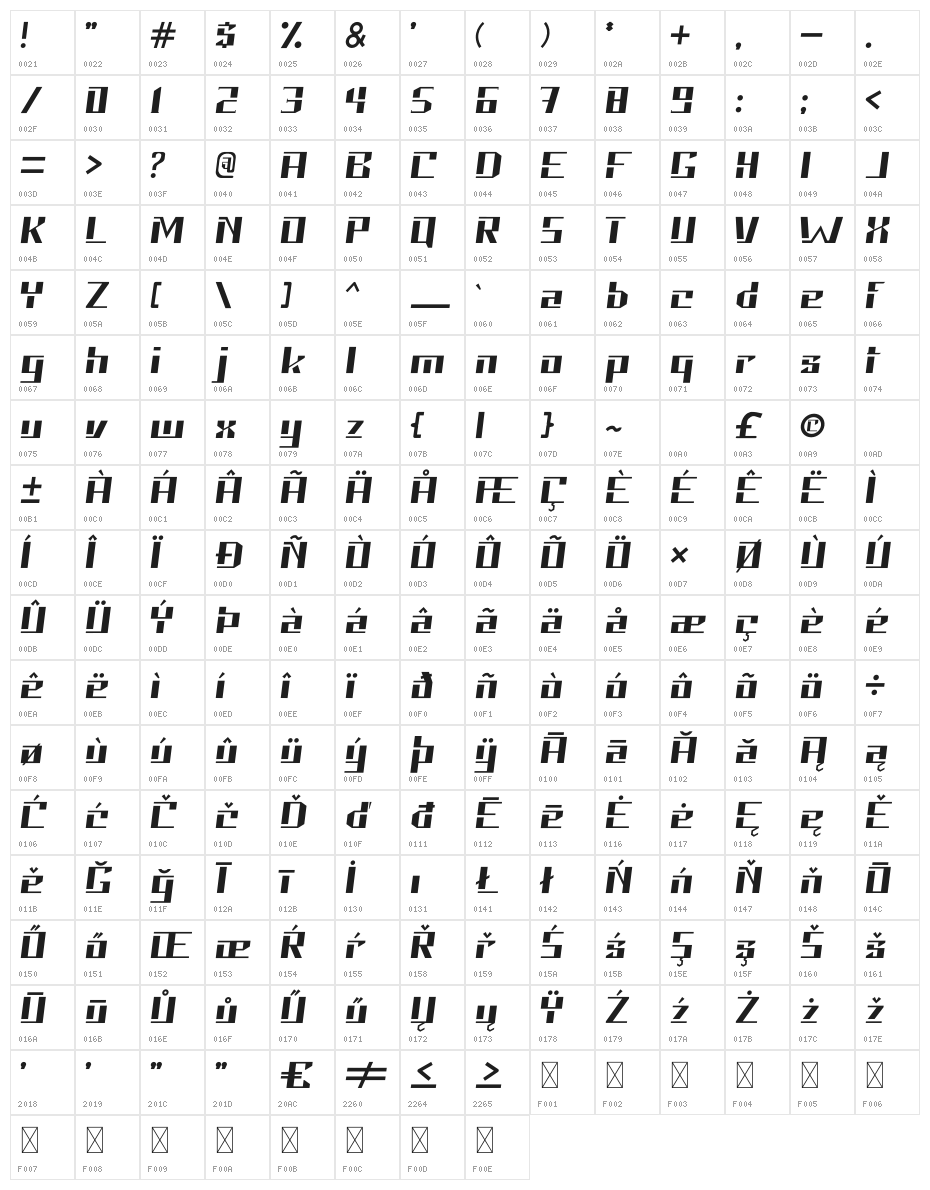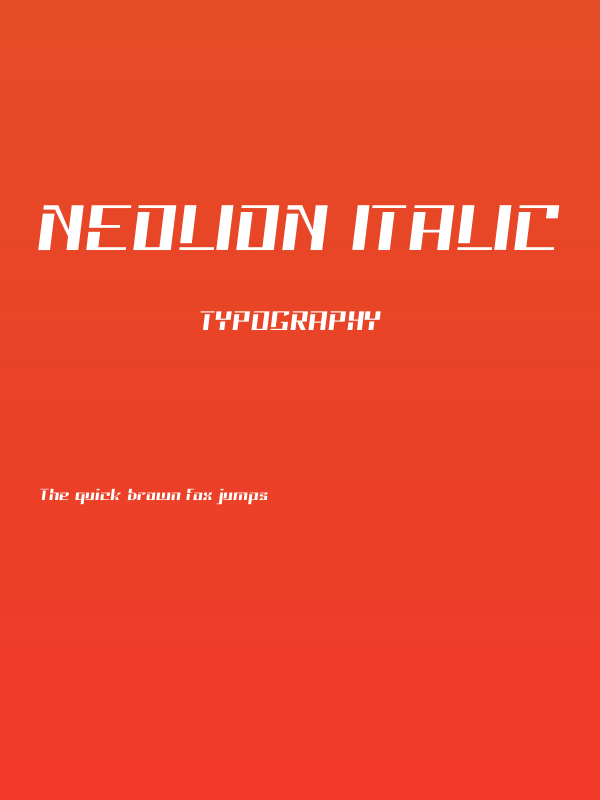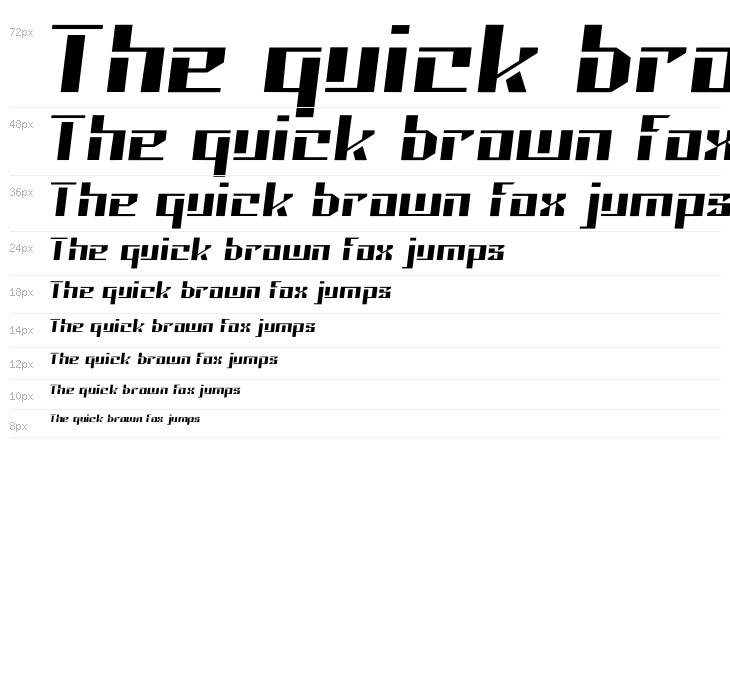
Neolion Italic Font
Neolion Italic Description
This font features a bold, angular design with a futuristic and dynamic appearance. The characters are italicized, giving them a sense of motion and speed. The sharp edges and geometric shapes create a striking visual impact, making it ideal for attention-grabbing designs. The uppercase and lowercase letters maintain a consistent style, with unique cuts and angles that add to the overall aesthetic. Numbers and special characters are designed to match the bold and angular theme, ensuring a cohesive look across all text elements.
| Proposed Projects | Ideal for sci-fi themed projects, video game titles, technology branding, and modern posters. |